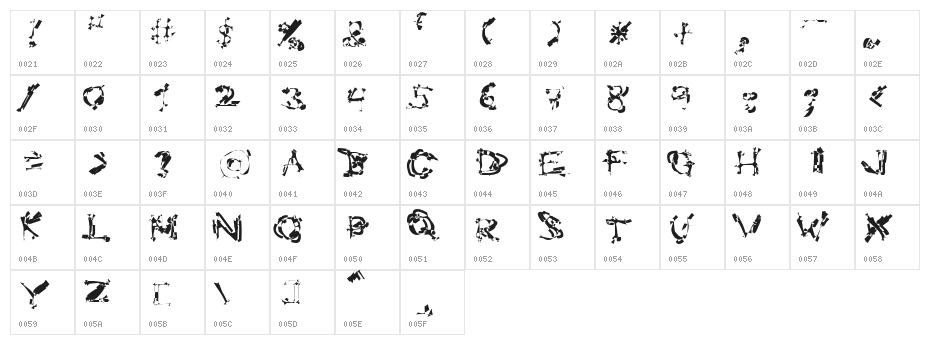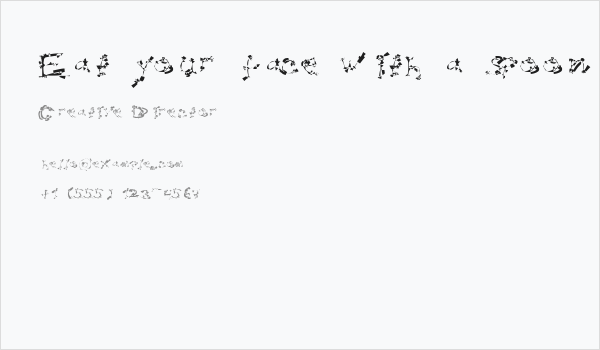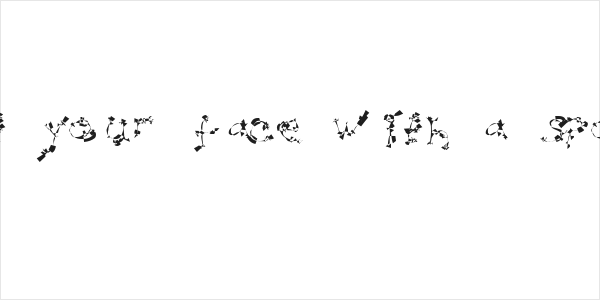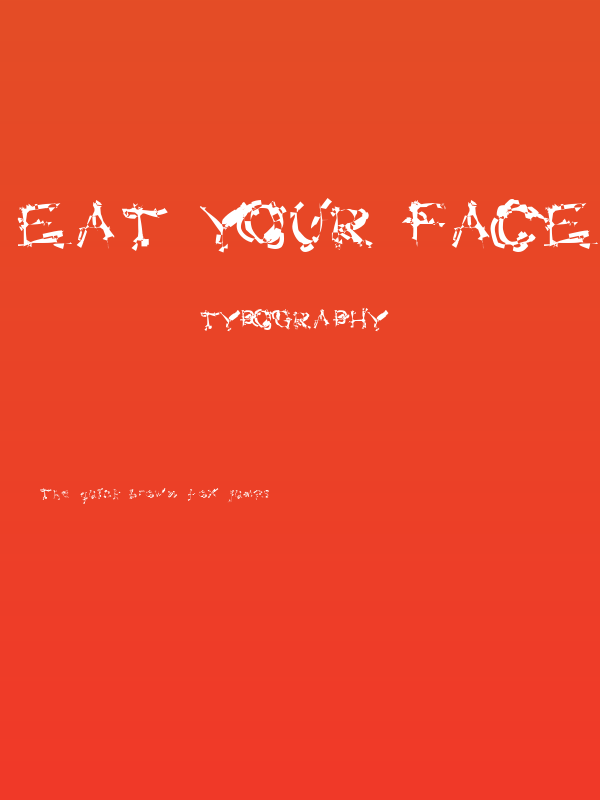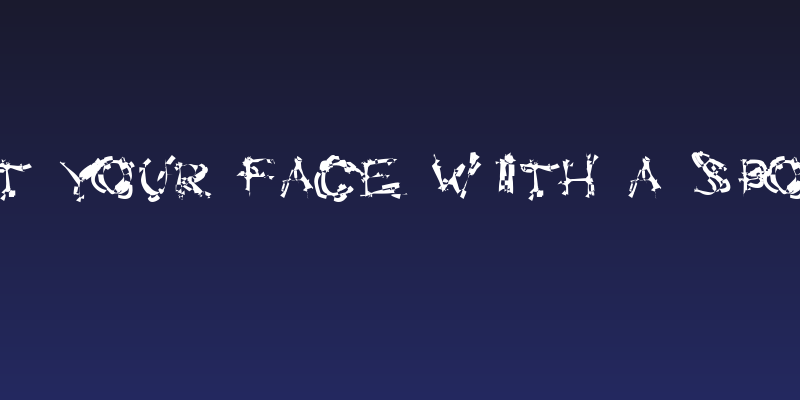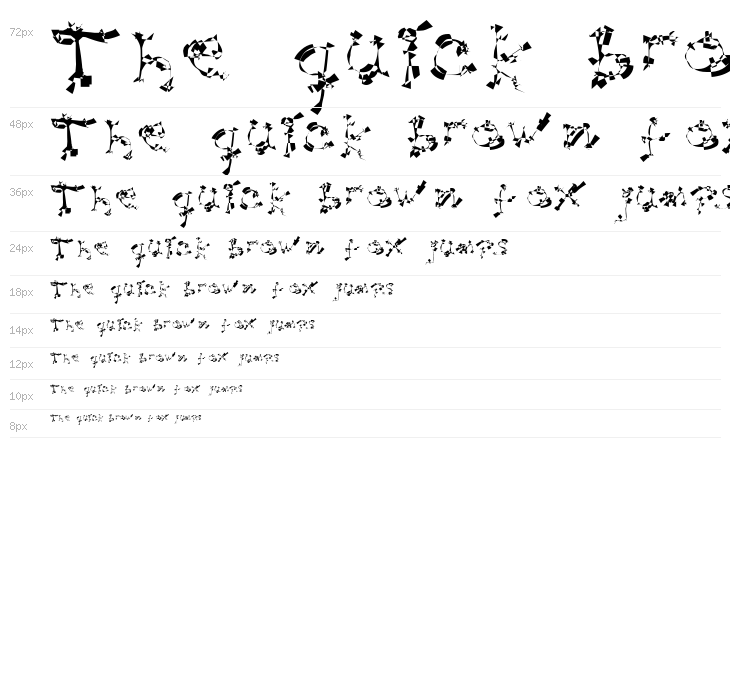
Eat your face with a spoon Font
Eat your face with a spoon Description
This font presents a chaotic and fragmented appearance, with each character composed of irregular, jagged shapes that resemble shattered glass or torn paper. The design is highly abstract, making it difficult to discern individual letters at first glance. The uppercase and lowercase letters, as well as numbers and special characters, all share this disjointed style, creating a consistent yet unconventional look. The font's unique aesthetic is eye-catching and could be used to convey a sense of disruption or avant-garde creativity.
| Overall Style | Abstract, Avant-garde |
| Use Case | Logos, Posters, Album covers |
| Proposed Projects | Ideal for avant-garde art projects, edgy graphic design, or experimental music album covers. |